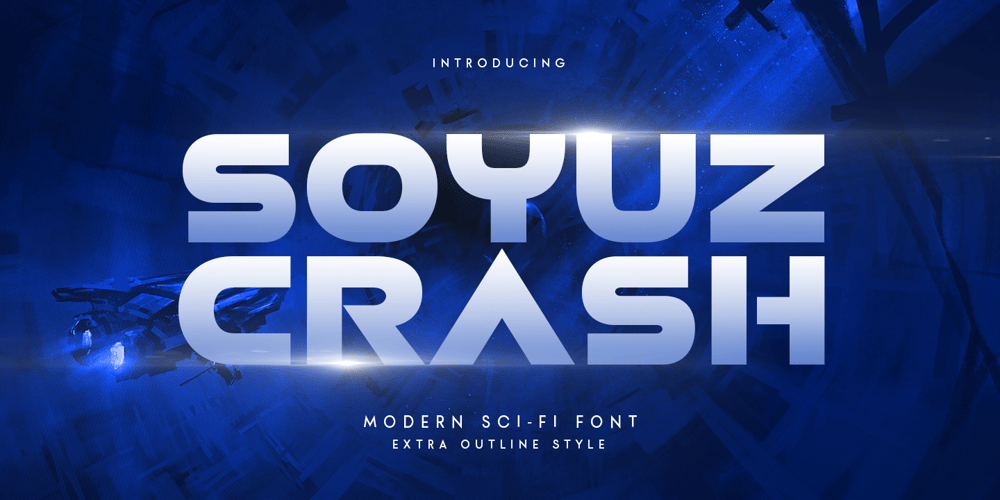
Soyuz Crash Font Family was designed by Zamroni Hamzah and published by Sensatype Studio. Soyuz Crash contains 2 styles and family package options. Soyuz Crash is a Modern Sci-fi font that created special for Technology, Sci-fi, modern and more stand out typography needs, with extra alternative styles that make your design more memorable. It’s so perfect to add your style and headline overview for future, technology, actions, and technology theme. And specially for this font, we crafted for bold action style and modern feels so enjoy to create any project that will show your main idea out.Soyuz Crash Modern Sci-fi font ready with: Modern Font variation characters prepared to get creative Preview as a inspirations that you can do Ready with All Uppercase characters Wish you enjoy our font. ๐